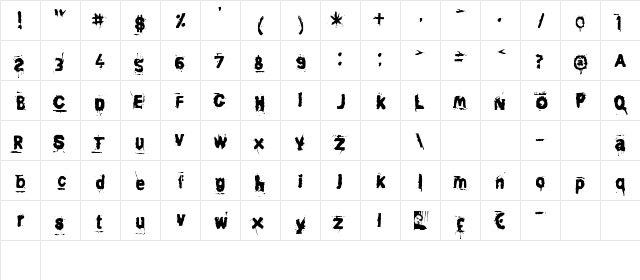
Awaken Regular Font Preview
Awaken Regular
Awaken Regular Font Details
Design Context for Awaken Typeface
Awaken is a composed and adaptable typeface that performs quietly and consistently across a wide range of design contexts.
Pro Tip: Use Awaken in both headline and body roles to test its range before committing to a single application.